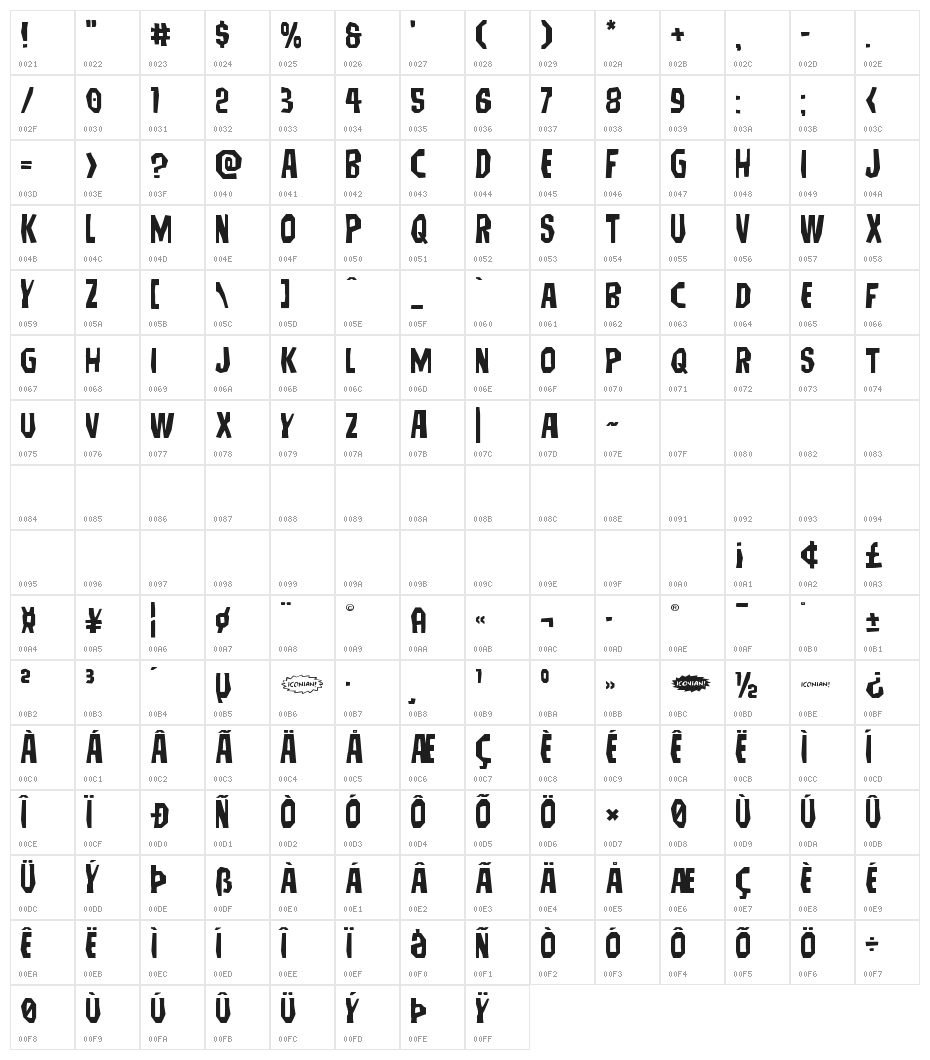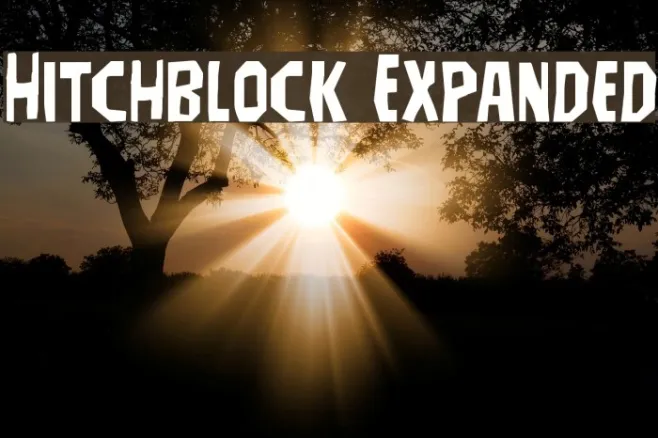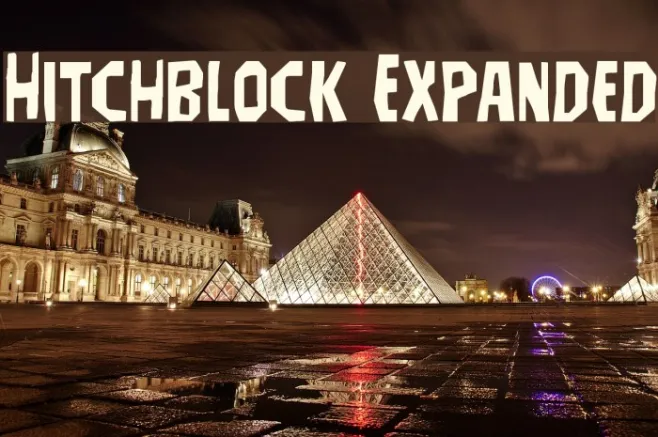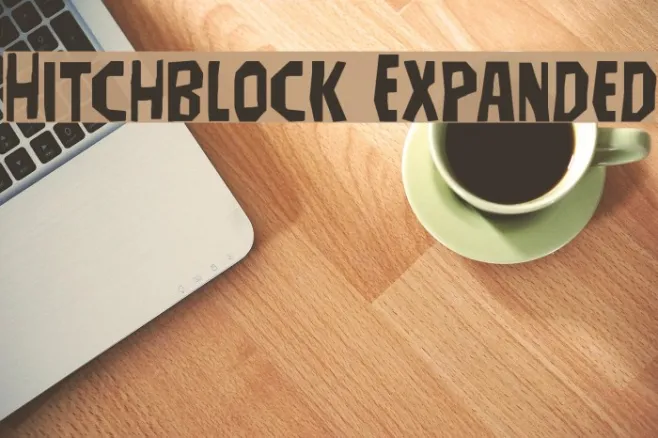
Hitchblock Expanded Font
Hitchblock Expanded Description
This font features a bold and striking design with angular, geometric shapes that give it a distinctive and modern appearance. The characters are wide and blocky, with a slightly irregular edge that adds a touch of uniqueness and personality. The uppercase letters are particularly prominent, making a strong visual impact. The numbers and special characters maintain the same bold and angular style, ensuring consistency across the typeface. This font is ideal for projects that require a bold statement or a modern, edgy look.
| Proposed Projects | Ideal for posters, headlines, branding, and any design that requires a strong visual impact. |